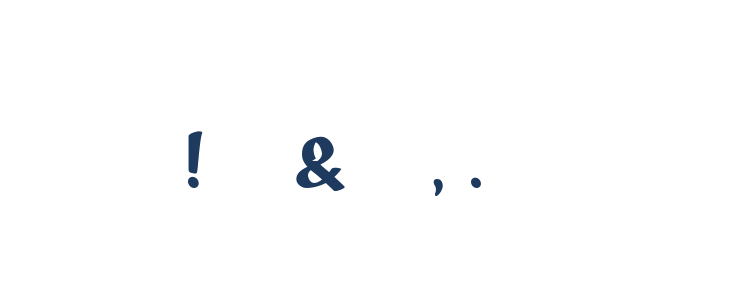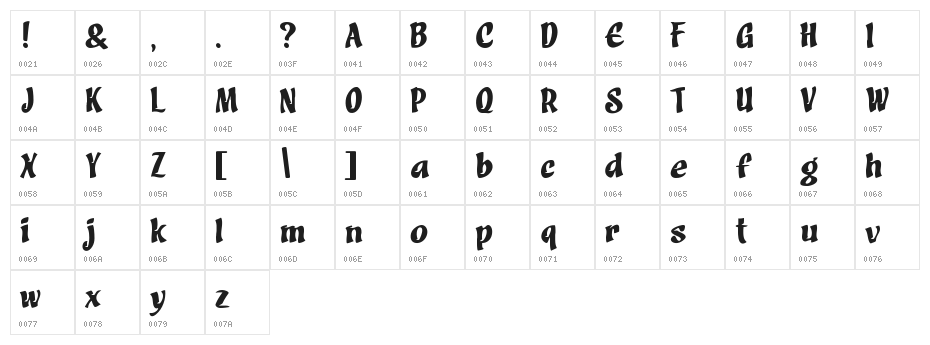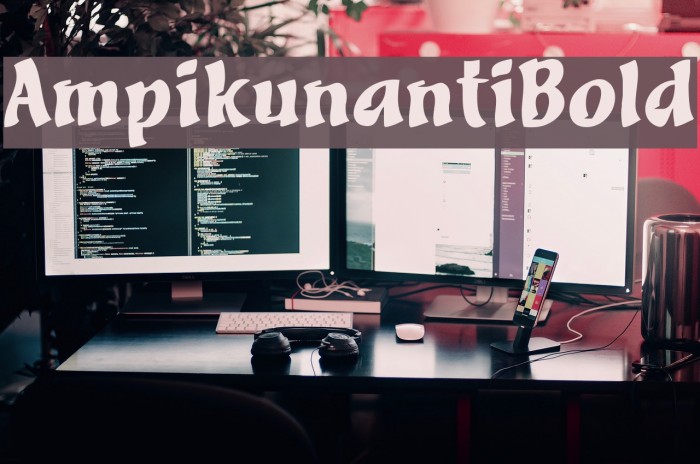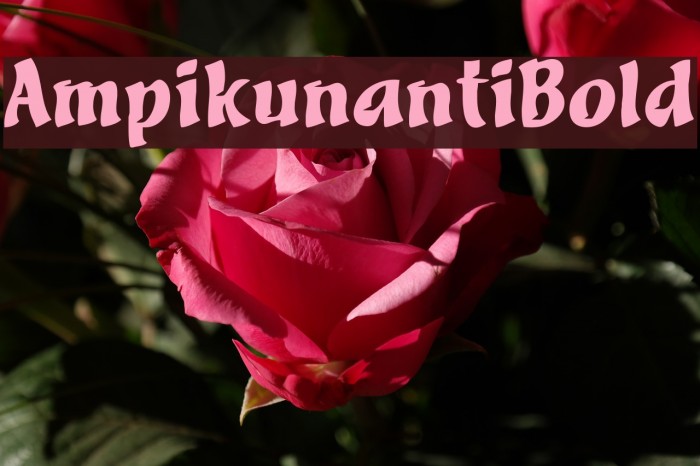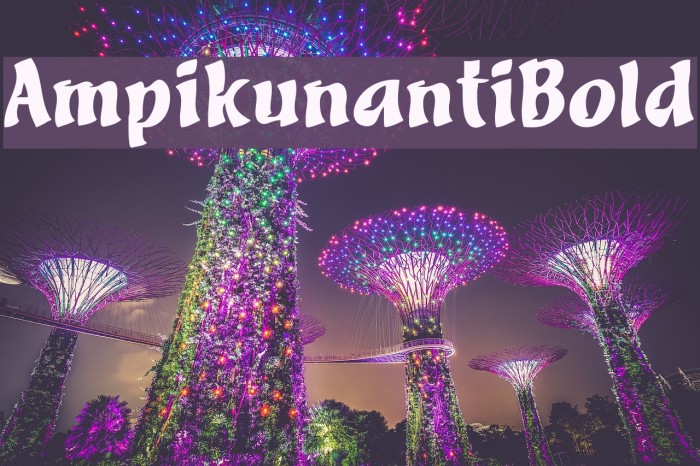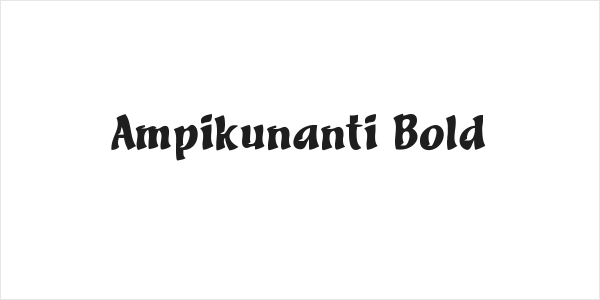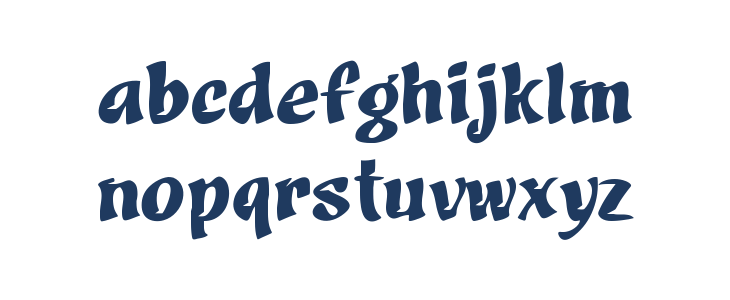
Ampikunanti Bold Font
Ampikunanti Bold Description
This font features a bold and dynamic style with a strong presence. The characters exhibit a hand-drawn, brush-like quality, giving them a lively and energetic appearance. The uppercase letters are robust and slightly condensed, while the lowercase letters maintain a consistent flow with a playful touch. The strokes are thick and exhibit a medium contrast, enhancing the boldness of the font. The overall style is decorative, making it suitable for eye-catching designs. The special characters and numbers are designed to match the bold and expressive nature of the alphabet, ensuring consistency throughout.
| Proposed Projects | Ideal for posters, branding, headlines, and any project requiring a bold, artistic touch. |